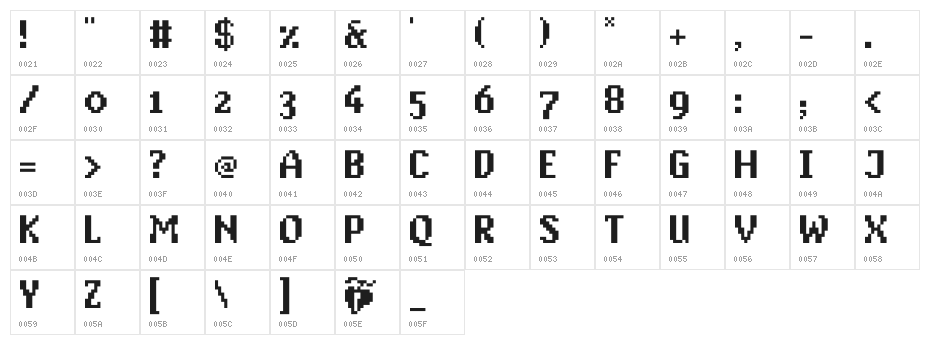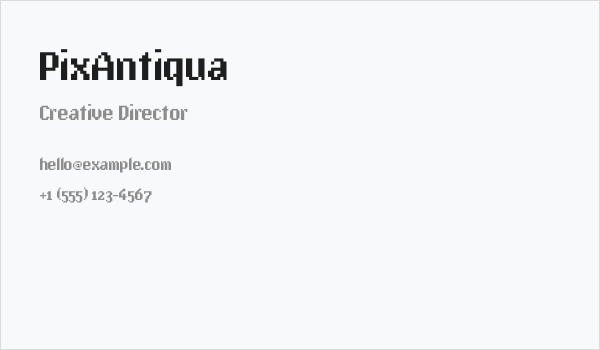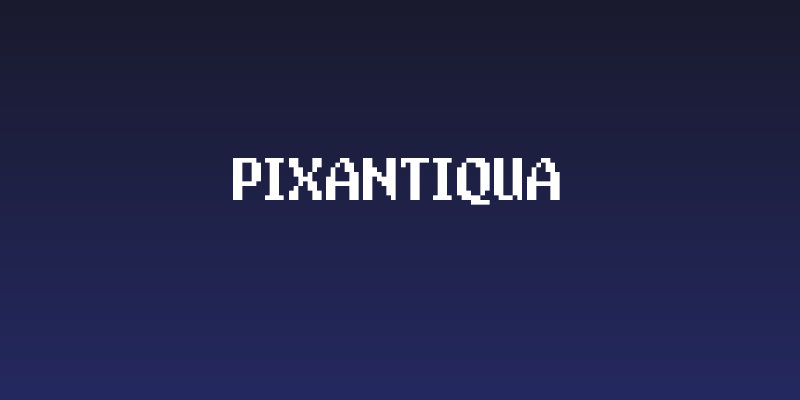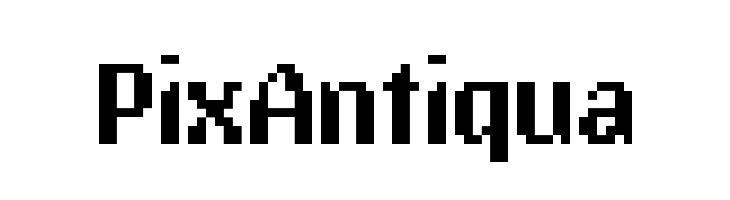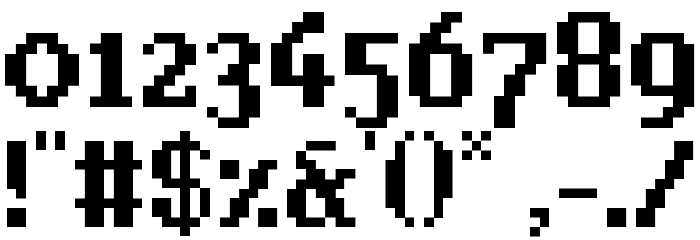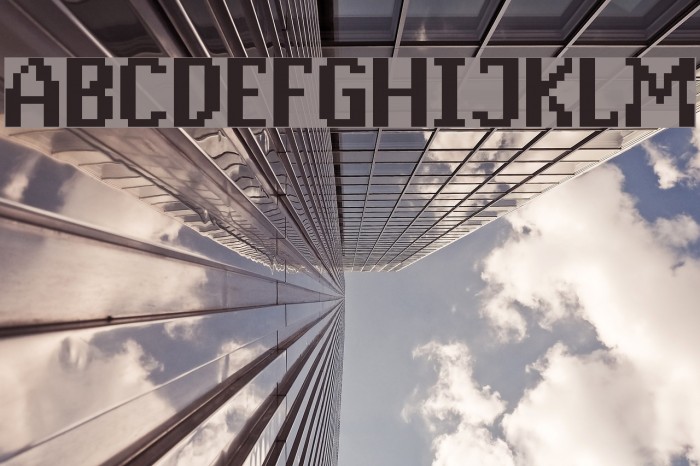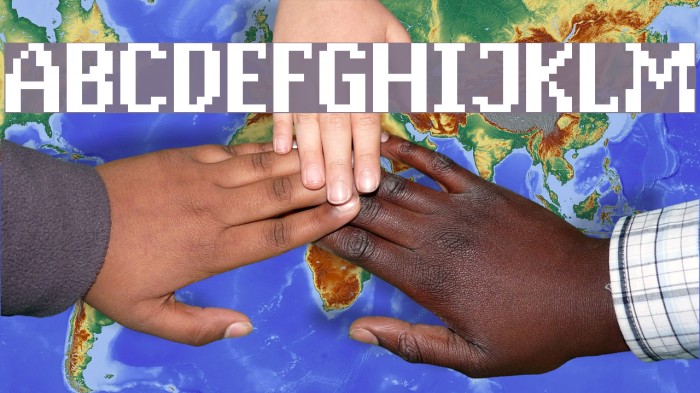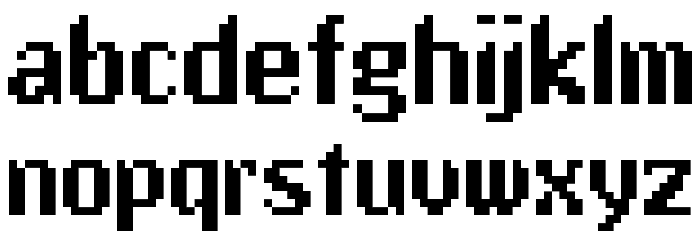
PixAntiqua Font
PixAntiqua Description
This font features a bold, pixelated style reminiscent of early digital typography. Each character is constructed with a blocky, grid-like appearance, giving it a distinctly retro and digital feel. The uppercase and lowercase letters maintain a consistent height, contributing to a uniform look across the typeface. Numbers and special characters follow the same pixelated design, ensuring cohesion throughout. The font's geometric structure makes it highly legible at various sizes, though it is particularly striking in larger formats where its unique style can be fully appreciated.
| Overall Style | Retro, Digital |
| Proposed Projects | Ideal for video game design, retro-themed posters, digital art projects, and any creative work that seeks to evoke a sense of nostalgia for early computing. |